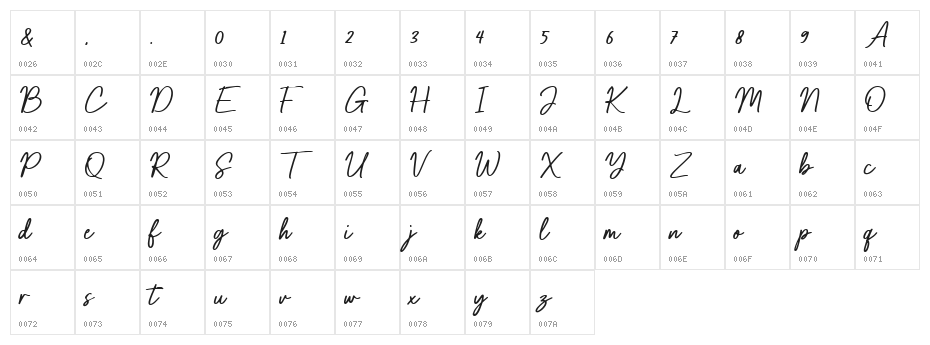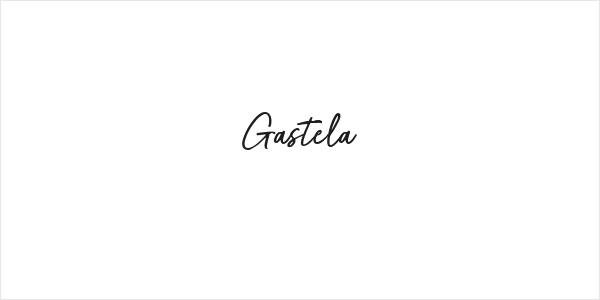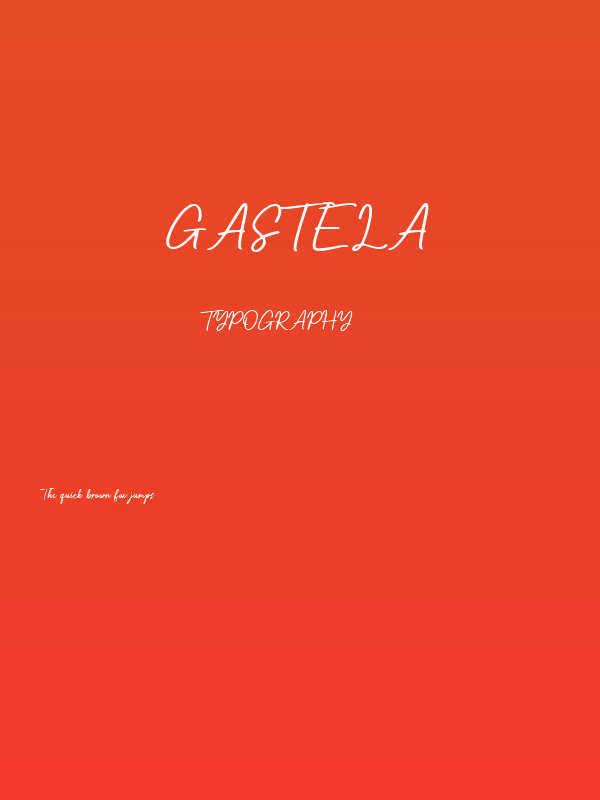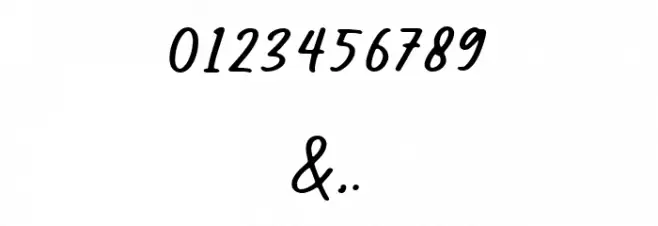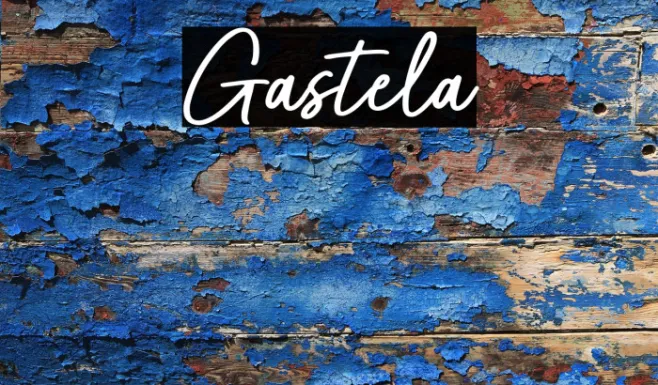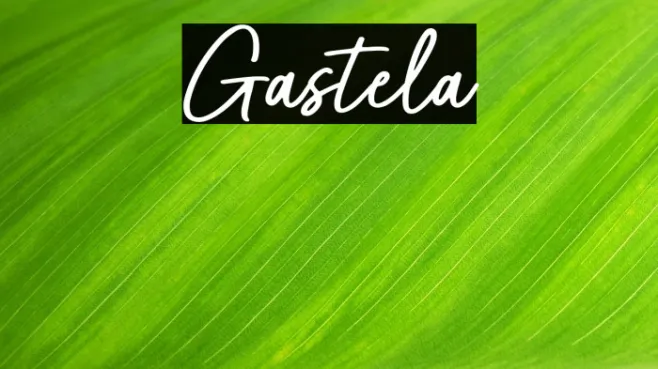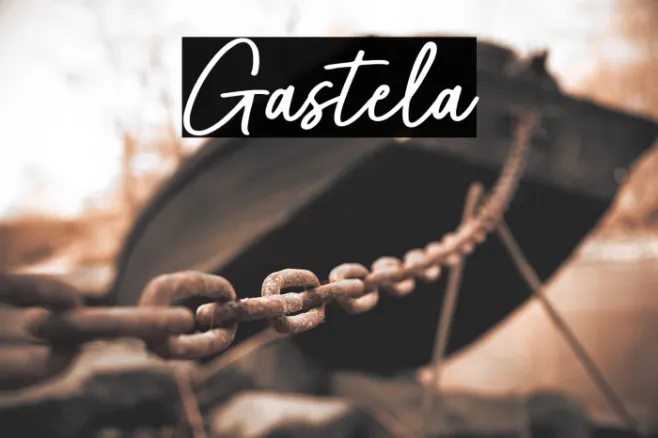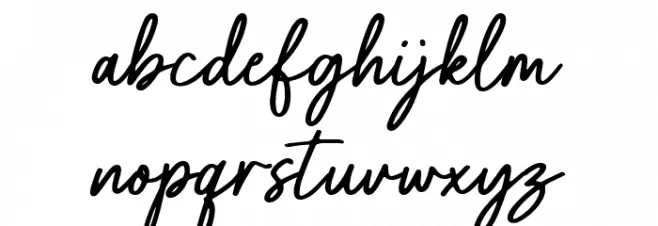
Gastela Font
Gastela Description
This font features a stylish and fluid script design, characterized by its elegant and flowing strokes. The uppercase letters exhibit a graceful, cursive style with a slight slant, while the lowercase letters maintain a consistent and smooth flow. The numerals are clear and legible, complementing the overall aesthetic. The special characters, including the ampersand and period, are designed with the same attention to detail, ensuring a cohesive look. This font exudes a sense of sophistication and charm, making it suitable for a variety of creative applications.
| Proposed Projects | Ideal for wedding invitations, branding, greeting cards, and elegant logo designs. |